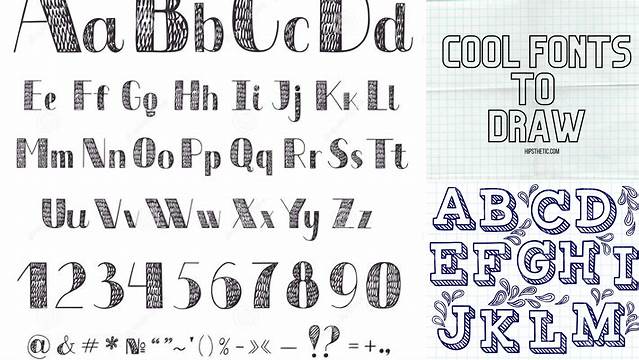
Easy-to-Draw Fonts: Your Ultimate Guide To Simple Lettering
Are you looking for fonts that are easy to draw? Maybe you're a beginner artist, a seasoned designer, or someone who simply enjoys doodling. Choosing the right font can significantly impact your drawing experience, making it more enjoyable and less frustrating. In this article, we'll explore the best fonts that are easy to draw, breaking down why they're ideal and offering tips to help you master them. We'll cover a range of styles, from simple block letters to more stylized options, ensuring there's something for everyone. So, grab your pencils, pens, or digital drawing tools, and let's dive into the world of easy-to-draw fonts!
Understanding the Characteristics of Easy-to-Draw Fonts
When selecting fonts that are easy to draw, it's essential to understand the key characteristics that make a font user-friendly for sketching. These characteristics often include simplicity, clear letterforms, and minimal embellishments. Fonts with these features are generally easier to replicate by hand, as they require less intricate detail and fewer complex strokes. The best fonts for drawing often have well-defined shapes that are easy to recognize and reproduce. This means avoiding fonts with overly elaborate serifs (the small strokes at the end of letters) or complex curves, as these can be challenging to draw accurately. Furthermore, the spacing between letters should be consistent to ensure a balanced and visually appealing result. The thickness of the strokes is also an important factor; fonts with uniform stroke weights tend to be easier to draw than those with varying thicknesses.
One of the primary advantages of using these fonts is their forgiving nature. Unlike more complex fonts that can expose inaccuracies, easy-to-draw fonts often allow for minor variations without significantly affecting the overall aesthetic. This is particularly beneficial for beginners who are still developing their drawing skills. Additionally, these fonts can save time and reduce frustration, allowing you to focus on other aspects of your artwork, such as composition and shading. They provide a solid foundation for your work and can be adapted to various styles, from playful doodles to more formal designs. Moreover, they are versatile and can be used in a wide range of applications, including illustrations, lettering, and graphic design projects. Understanding these characteristics will guide you in choosing the perfect font for your drawing needs.
Top Fonts That Are Incredibly Simple to Draw
Let's explore some of the best fonts that are easy to draw! These fonts have been chosen for their simplicity, readability, and suitability for hand-drawn applications. Each font offers a unique aesthetic, catering to different preferences and drawing styles. Whether you're aiming for a clean, modern look or a more whimsical style, you'll find excellent options below. Take a look at some of the best fonts you can try!
1. Arial
Arial is a widely popular sans-serif font known for its clean and straightforward design. This font is incredibly easy to draw due to its simple letterforms and consistent stroke weight. Its clarity makes it perfect for both beginners and experienced artists. Arial's straightforward design helps you concentrate on other elements of your design without being distracted by complex letter shapes. The absence of serifs (the small strokes at the ends of letters) means that it is very straightforward to recreate the letter shapes, ensuring that your drawings look neat and polished.
Arial is an excellent choice for various applications, including simple text, headings, and even body text within your drawings. Its versatility makes it a go-to option for many designers and artists alike. Moreover, the font's simplicity means that it can easily be adapted to various styles, making it appropriate for both formal and informal projects. Its widespread availability across different platforms and devices also ensures that you can easily share your work without compatibility issues. Overall, Arial's simple design and clear appearance make it one of the best fonts that are easy to draw, especially when it comes to clarity and ease of replication.
2. Helvetica
Similar to Arial, Helvetica is another classic sans-serif font celebrated for its clean and neutral appearance, making it super easy to draw. It shares many of the same benefits as Arial, including simple letterforms and uniform stroke weights. Helvetica is an incredibly readable font, ensuring that your text is clear and understandable, which is essential for any drawing project. Its timeless design is suitable for a wide range of purposes, from logos to posters. Its neutrality allows it to blend in seamlessly with different design elements and styles.
Helvetica's clear, uncluttered appearance makes it a superb option for drawing, particularly for artists who value precision and readability. Its straightforward design minimizes the challenges and time required to replicate the letters by hand, enabling artists to concentrate on other aspects of their work. Whether you're working on a digital drawing or using traditional mediums, Helvetica offers a reliable and versatile foundation for your typography. Its enduring popularity and wide availability make it a staple in the design world, appreciated for its simplicity and readability.
3. Comic Sans
Comic Sans is a less formal font, often perceived as playful and fun, which makes it easy to draw, especially for cartoon-style illustrations or informal projects. Its handwritten appearance makes it a distinctive choice for artists and designers seeking a more casual aesthetic. The font's informal style and friendly appearance make it a natural fit for children's books, comic strips, and other lighthearted creations. Its simplicity allows for easy replication, even for those with limited drawing experience.
Despite its often-criticized reputation, Comic Sans's simplicity and readability make it a perfectly easy to draw font. The font's letterforms are deliberately informal and approachable, which makes it a favorite among beginners. This font's charm lies in its casual design, which instantly adds a sense of fun and friendliness to any project. Whether you want to add a handwritten touch to your drawings or create a whimsical aesthetic, Comic Sans is an excellent choice. Moreover, its playful character allows you to express creativity, making it an excellent option for those seeking to develop their skills. Its unique appeal and ease of drawing make it a viable option.
Choosing fonts that are easy to draw is essential for any artist or designer, whether you're just starting or are an experienced professional. Fonts like Arial, Helvetica, Comic Sans, Open Sans, and Montserrat are excellent options because of their simplicity, clarity, and versatility. By understanding the characteristics of these fonts and employing techniques like starting with basic shapes, using guidelines, and practicing regularly, you can improve your drawing skills and create beautiful typography. So, pick your favorite font, grab your drawing tools, and start sketching. Remember, the key to success is practice and experimentation. Happy drawing!